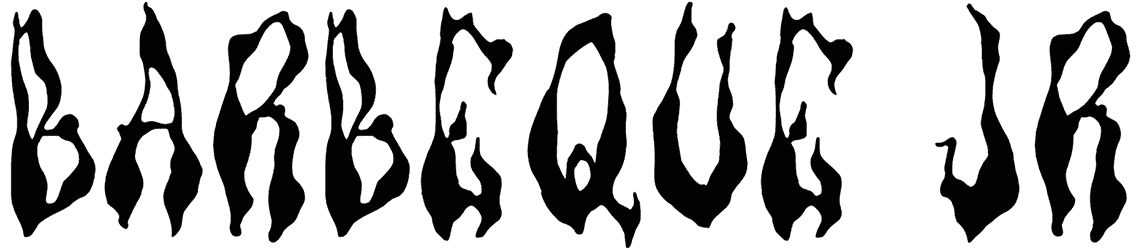
Barbeque Jr Font
The first time you look at Barbeque Jr, the shape of the flames comes to your mind, and for this reason, this all-caps horror font has the real potential to bring a sense of jauntiness, fear, danger, and dynamism to all of your graphic projects. Its unusual form can persuade the audience to follow your graffiti, movie posters, video game brochures, or logos.